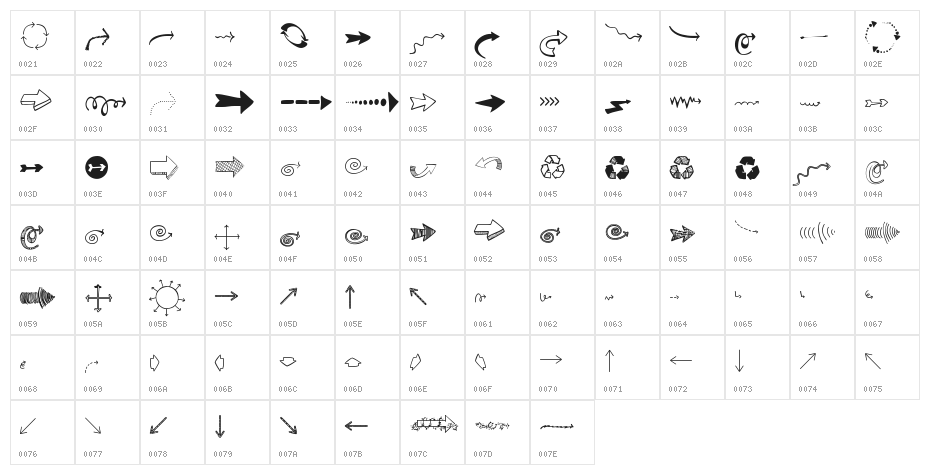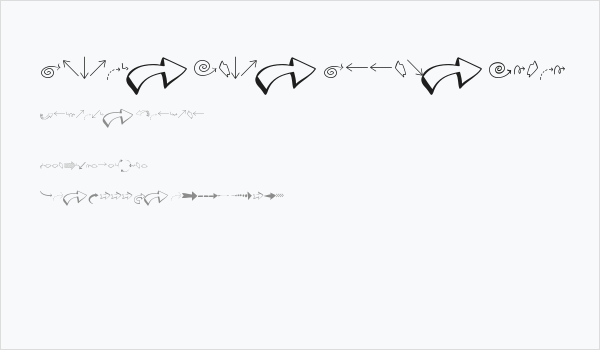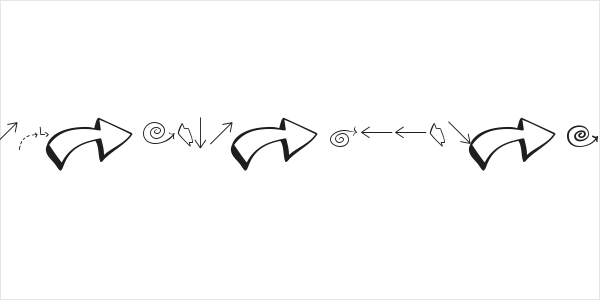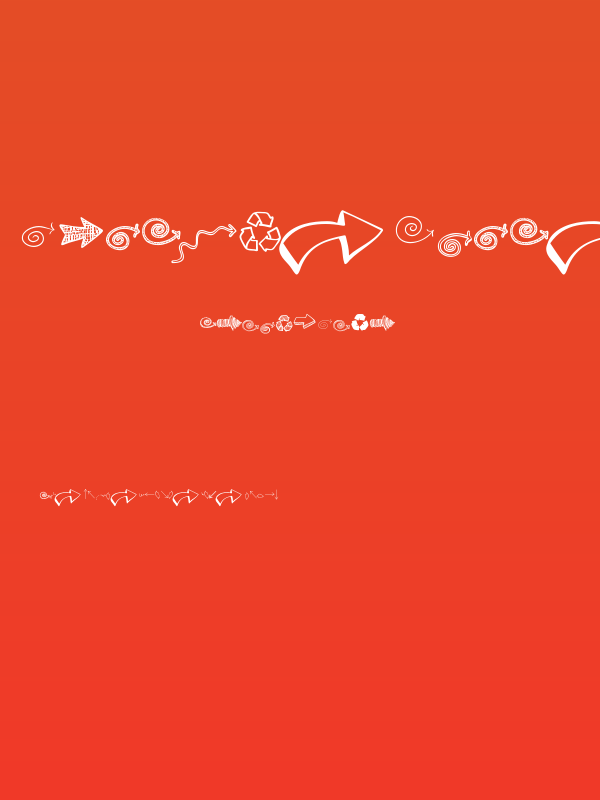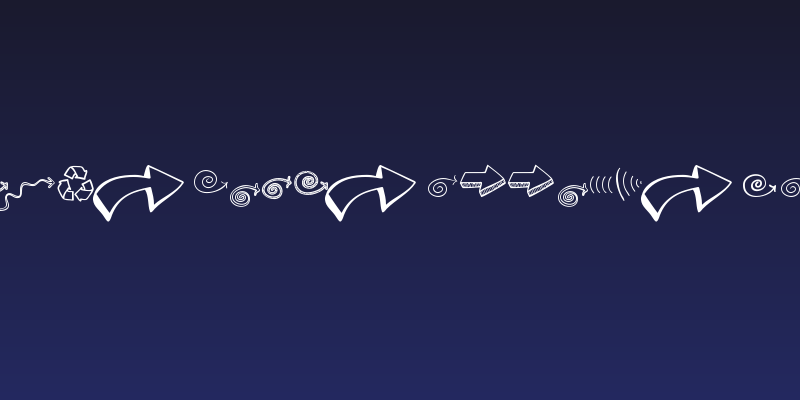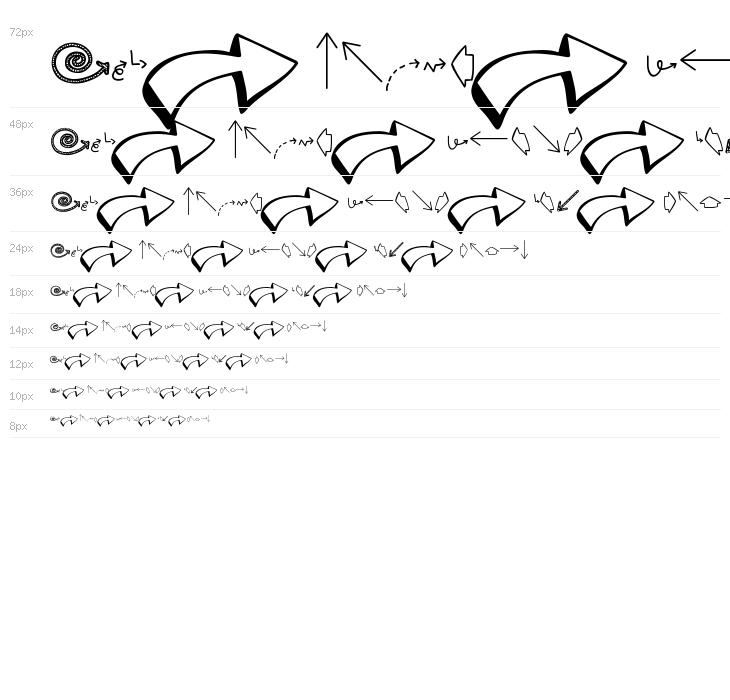
Austie Bost Arrow Mania Font
Austie Bost Arrow Mania Description
This collection features a diverse array of arrow designs, each with its own unique flair and style. The arrows range from simple, straight lines to intricate, swirling patterns, offering a playful and creative touch. Some arrows are adorned with decorative elements like dots, spirals, and zigzags, while others incorporate recycling symbols and directional cues. The variety in design allows for versatile use in projects that require a dynamic and engaging visual element. These arrows can be used to guide viewers' attention, indicate movement, or simply add an artistic touch to a design.
| Use Case | Infographics, Presentations, Artistic Designs |
| Proposed Projects | Ideal for infographics, educational materials, creative presentations, and artistic design projects. |